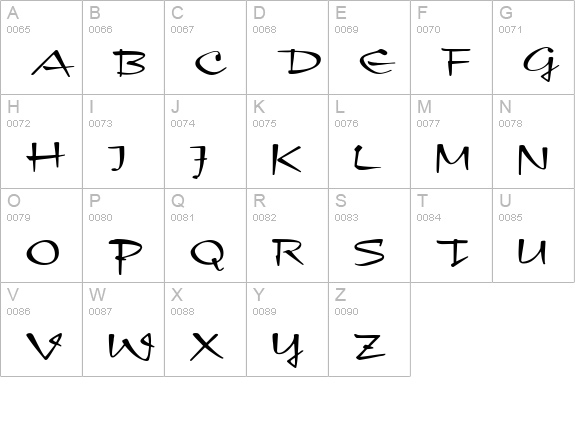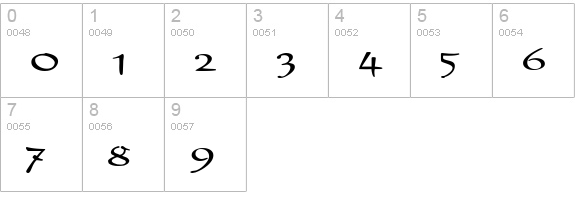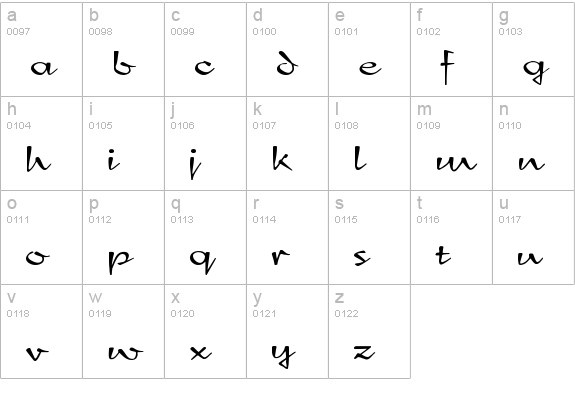
New Day MF Script Font Details
Introducing the captivating and elegant New Day MF Script font, a perfect blend of modernity and sophistication. With its flowing curves and exquisite details, this script font is ideal for adding a touch of class to any project. The New Day MF Script font exudes charm and style, making it a versatile choice for a wide range of design applications. And the best part? It's completely free! You can easily download the New Day MF Script font at FontsMarket.com and start using it in your projects right away. Whether you're designing invitations, logos, posters, or any other creative work, this font is sure to elevate your designs to the next level. Don't miss out on the opportunity to enhance your work with the beauty and elegance of the New Day MF Script font. Download it now and let your creativity shine!